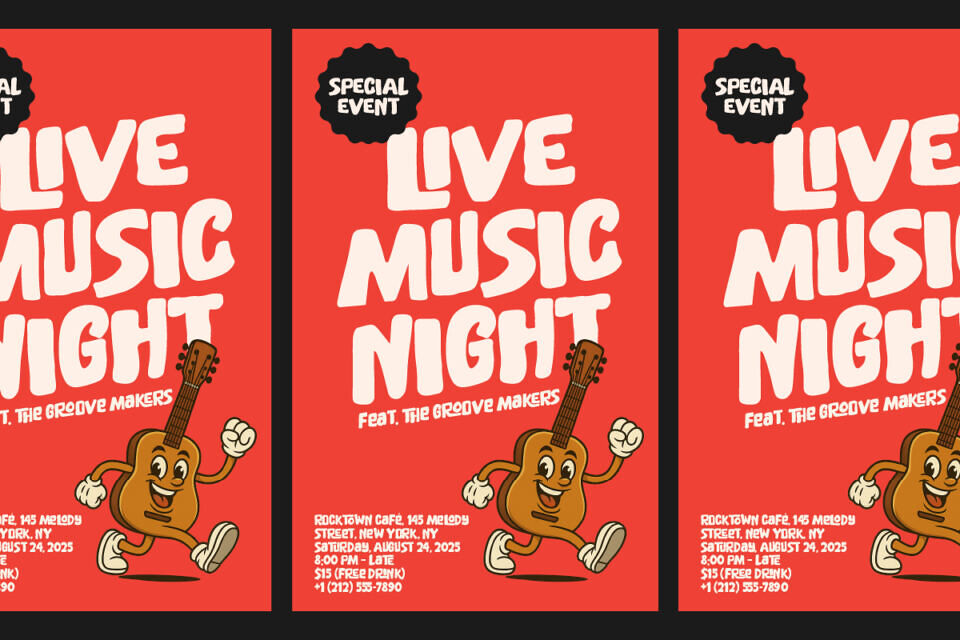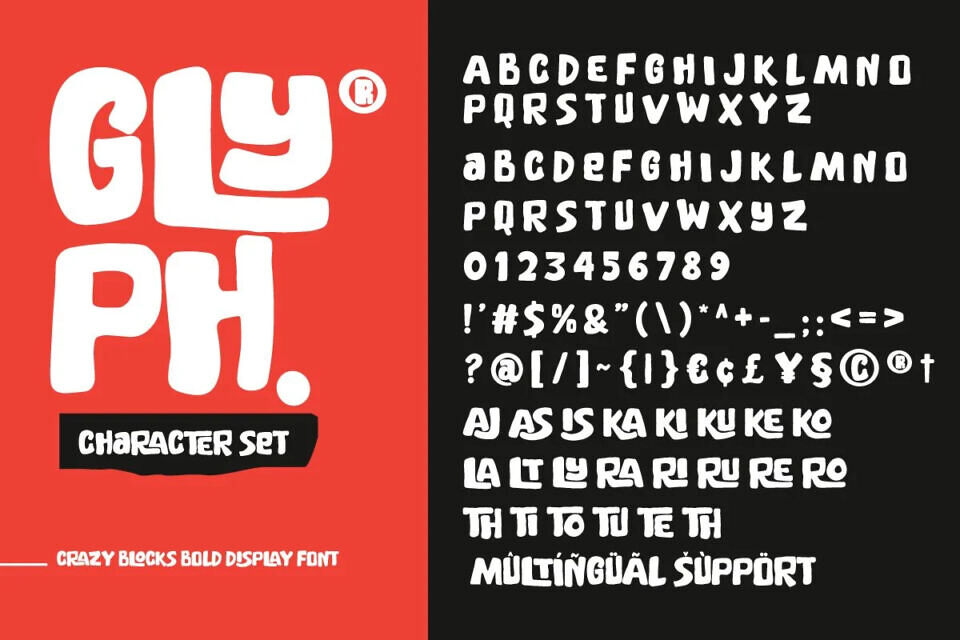
Crazy Blocks Font
Crazy Blocks is a bold display font with a chunky, playful, and full-of-character style. Perfect for designs that aim to stand out, appear strong, and grab attention. Its quirky letterforms bring a modern retro vibe, making it versatile for various creative projects.